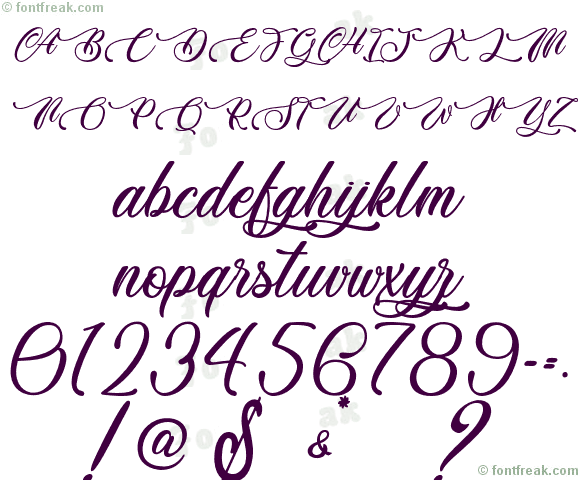
Weather Sunday - Personal Use
About Weather Sunday - Personal Use
Weather Sunday - Personal Use is an exquisite script font designed by Suthi Srisopha that beautifully combines elegance with a touch of playfulness. As a handwritten typeface, it exudes a warm, inviting character that makes it a delightful choice for various design projects. The strokes are fluid and graceful, showcasing a moderate contrast that adds visual interest without overwhelming the viewer. The spacing is thoughtfully balanced, allowing the letters to breathe while maintaining legibility, making it ideal for both print and digital applications.
This font shines in creative contexts. It is perfect for crafting wedding invitations, where its romantic flair can set the tone for the special day. Additionally, Weather Sunday is an excellent choice for designing eye-catching movie posters, lending a whimsical yet sophisticated feel that can draw an audience's attention. Restaurant menus also benefit from its charming style, helping to create a welcoming atmosphere that entices diners. Moreover, content creators looking to enhance blog headers or social media graphics will find that this font adds a personal touch, making their content stand out in a crowded digital space.
What sets Weather Sunday apart is its ability to evoke emotion through its delicate yet sturdy letterforms. It captures the essence of casual elegance, making it a go-to option for anyone looking to add a personal, artistic flair to their work. Whether you're designing for a personal project or a professional endeavor, this font is sure to leave a lasting impression.